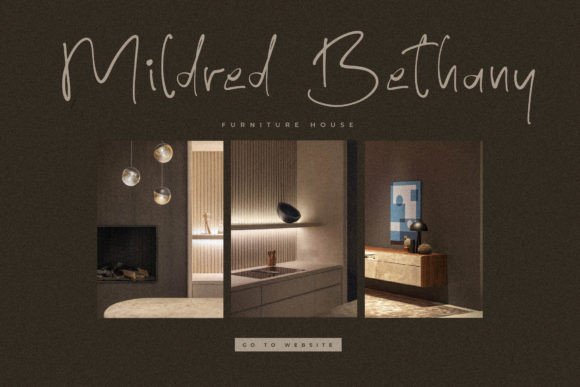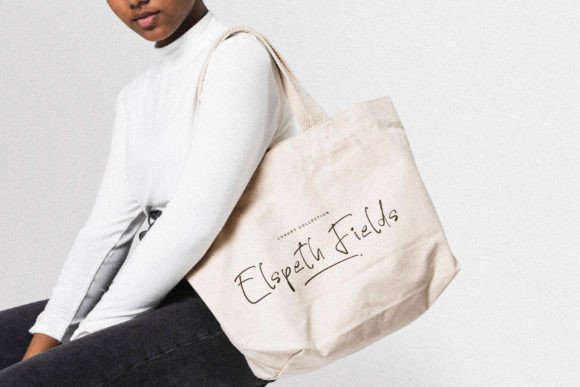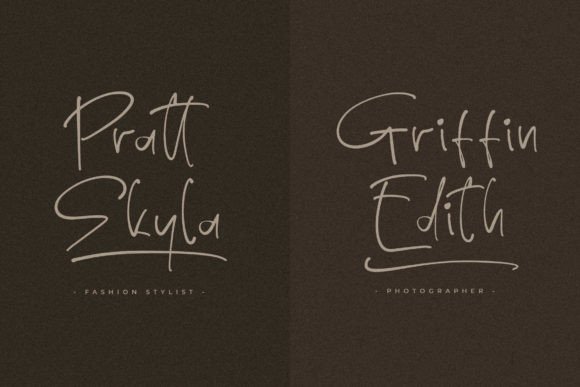
Introduction to Gabryelli Font
Have you ever been working on a creative project, staring at a blank page, and suddenly, the perfect font pops into your mind? For many designers, this is the moment when all the pieces come together. For those who have experienced this moment, they know how crucial the right font can be. And that’s exactly what we’re about to explore – the elegant and flowing Gabryelli Font.
As a design resource, Gabryelli Font is a high-quality addition to any project, offering a delicate and refined touch. With its beautiful and well-balanced characters, it’s no wonder this font has become a favorite among designers. Whether you’re working on a design that requires a transparent background or a creative project that needs a touch of sophistication, Gabryelli Font is a valuable asset to have in your toolkit. And the best part? It’s available for free download, making it an accessible resource for designers of all levels.
Key Features of Gabryelli Font
- High-quality design resource ideal for creative projects, offering a unique and elegant touch.
- Transparent background, allowing for seamless integration with various design elements and backgrounds.
- Perfect for use in graphic design, web design, and digital art projects, where a sophisticated and stylish font is required.
- Unique characteristics, such as its elegant and refined style, make it an excellent choice for designers seeking a high-quality design resource.
Honest Review: Gabryelli Font
I recently stumbled upon the Gabryelli Font and I must say, it’s been a game-changer for my creative projects. The first thing that caught my eye was the high-quality design, perfect for any graphic designer looking for a reliable design resource.
- What works well:
- ✨ The font’s versatility – it’s perfect for both digital and print media.
- ✨ The transparent background – a huge time-saver when designing graphics with complex backgrounds.
However, I do have a few minor complaints. The font could benefit from a few more weights and styles to make it even more versatile.
- Limitations:
- ⚠️ Limited weight and style options – only a few weights are available.
- ⚠️ Not ideal for projects requiring a large font size.
Overall, the Gabryelli Font is a solid addition to any designer’s toolkit. While it may have some limitations, its high-quality design and free download option make it a great choice for designers working on creative projects.
How to Use Gabryelli Font
The Gabryelli Font is a high-quality design resource that can elevate your creative project. It’s a versatile font that can be used for various purposes, from headings to body text.
Tips for Getting the Most Out of Gabryelli Font
To get the most out of the Gabryelli Font, use it with a transparent background to create a modern and sleek look. Experiment with different font sizes and combinations to find the perfect balance for your design.
The Gabryelli Font is perfect for:
- Headings and titles
- Body text in creative projects
- Branding and marketing materials
Great Vibes is similar to Gabryelli Font in its elegant and sophisticated feel, but it has a more modern and minimalist approach. It is ideal for use in branding, invitations, and other creative projects where a high-end look is required.
Alex Brush is a beautiful, handwritten font that is perfect for adding a personal touch to any design project. It features a high-quality design and a transparent background, making it easy to use in various design resources. Alex Brush is a free download and can be used in a wide range of creative projects.
Alex Brush is similar to Gabryelli Font in its elegant and handwritten feel, but it has a more rustic and vintage approach. It is ideal for use in branding, packaging, and other creative projects where a unique and personal touch is required.
Is the Gabryelli Font suitable for use on a transparent background?
Yes, the Gabryelli Font has a transparent background, making it ideal for use in creative projects where a transparent font is required. This allows for seamless integration with other design elements and a high-quality finish.